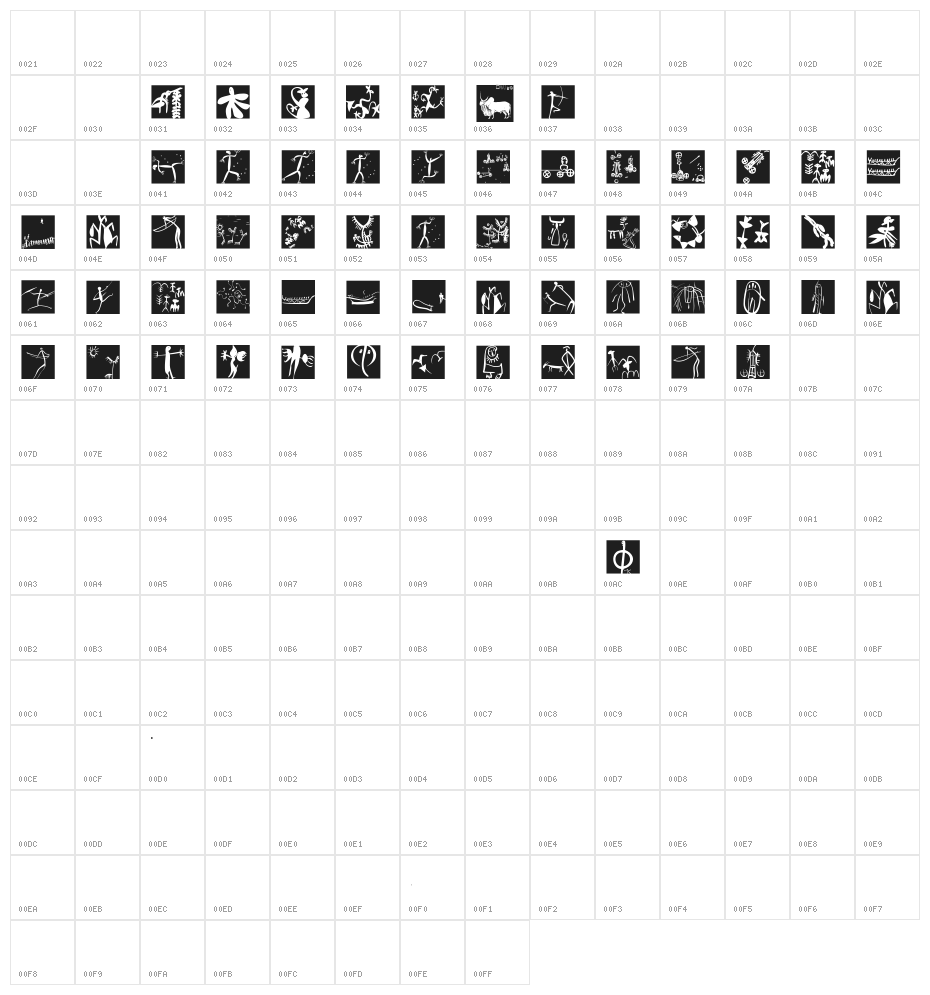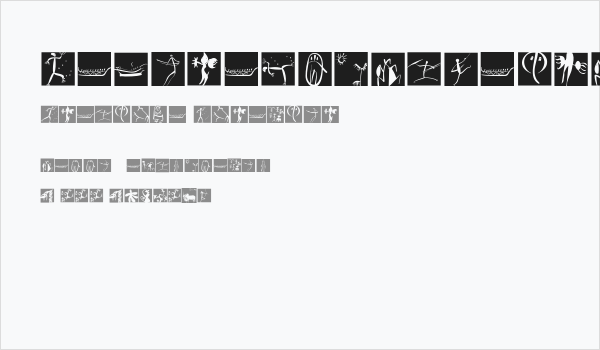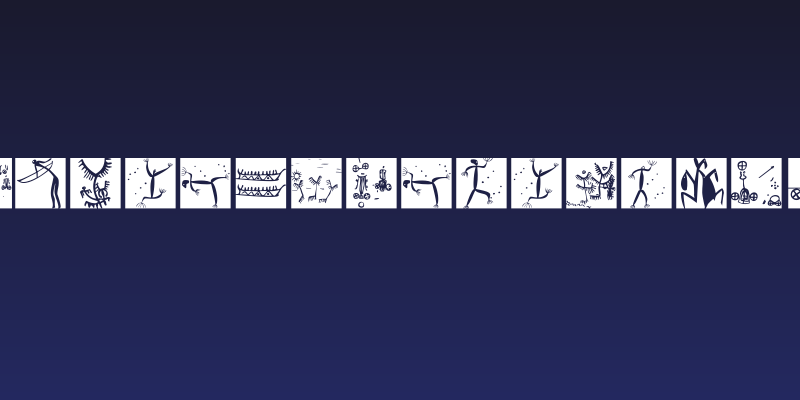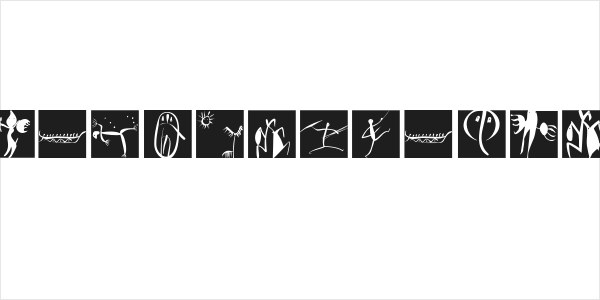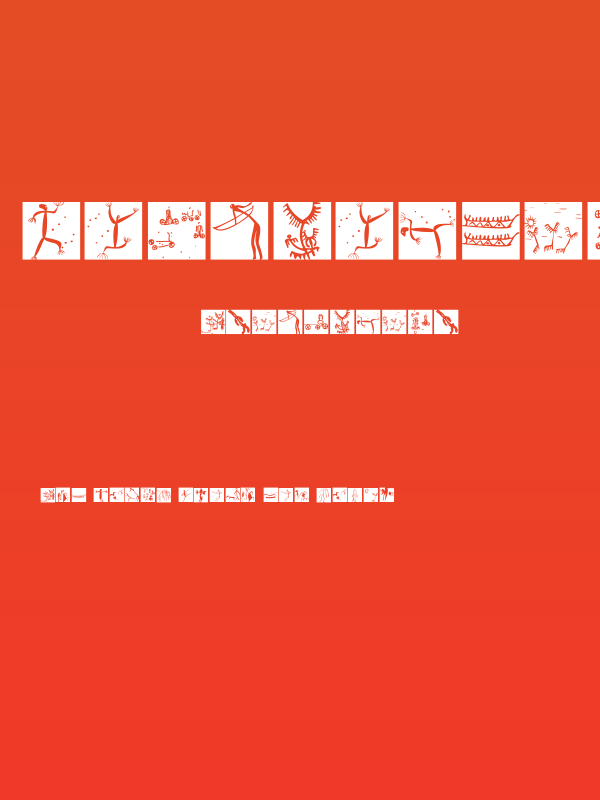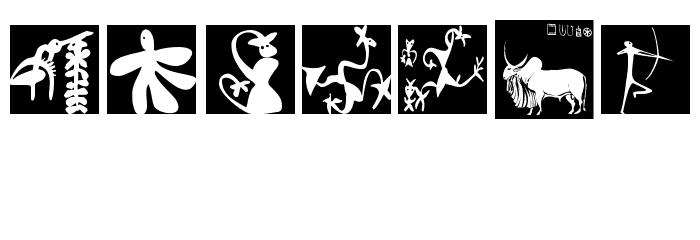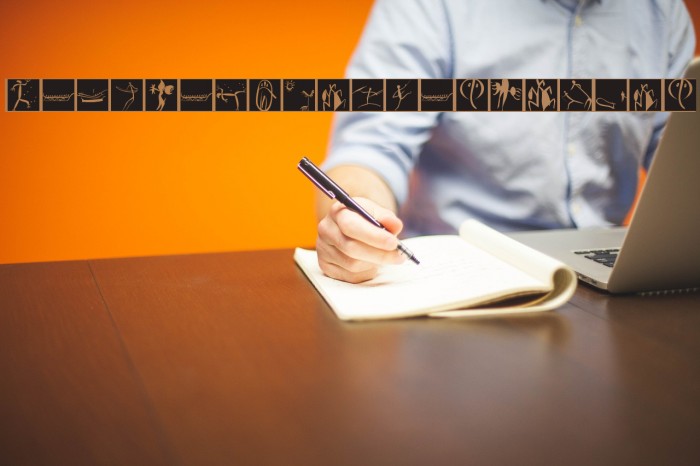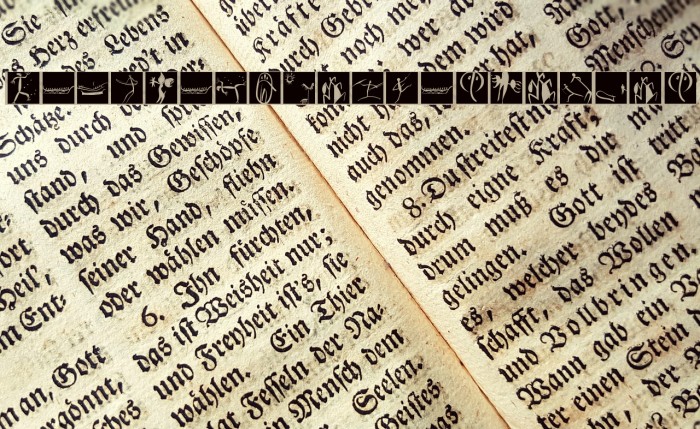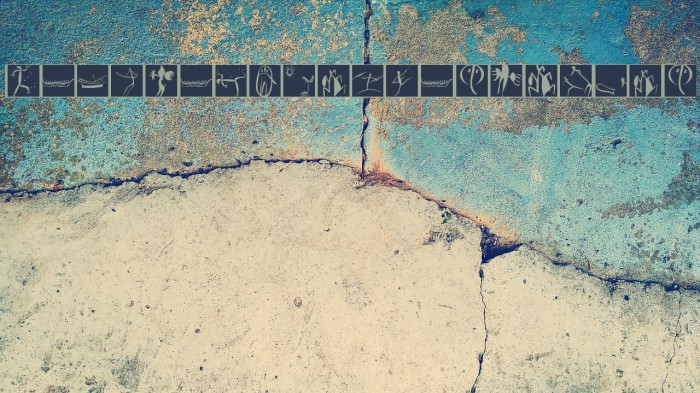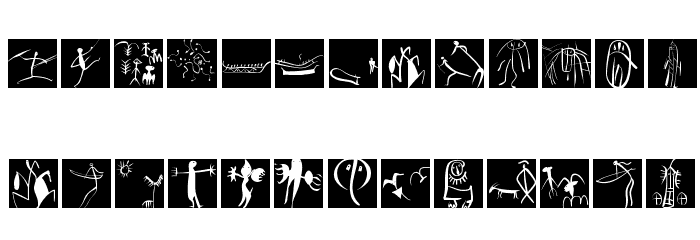
BeforeAlphabets-Night Font
BeforeAlphabets-Night Description
This font is a unique and artistic representation of characters, resembling ancient cave drawings or petroglyphs. Each character is depicted as a stylized figure or symbol, incorporating elements of nature and primitive art. The design is highly decorative, with intricate details that evoke a sense of history and storytelling. The characters are not uniform, each possessing its own distinct shape and form, contributing to an overall organic and dynamic appearance. This font is more of an artistic expression than a traditional typeface, making it suitable for creative projects that aim to convey a sense of antiquity or cultural depth.
| Use Case | Logos, Art projects, Thematic displays |
| Proposed Projects | Ideal for creative projects such as book covers, posters, or art installations that require a historical or cultural theme. |